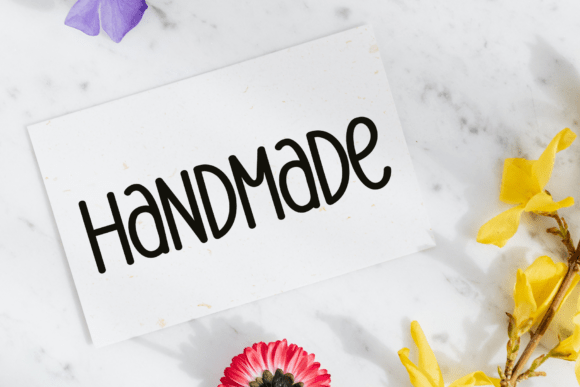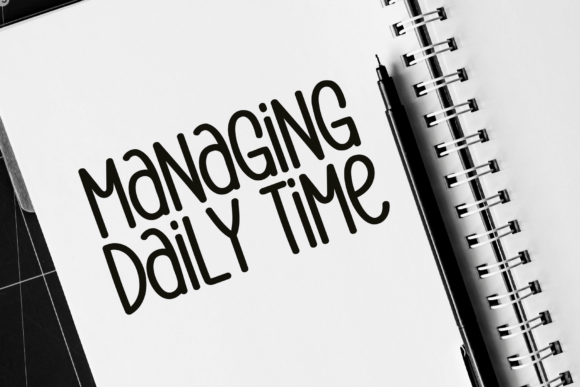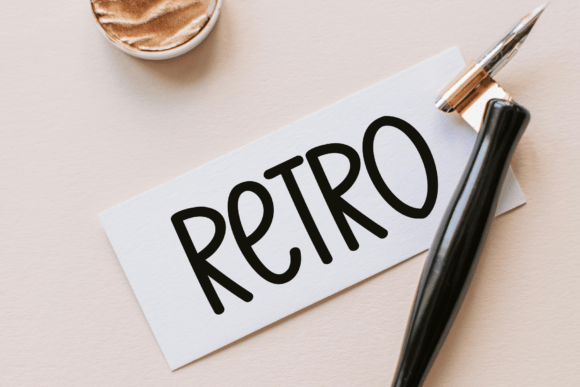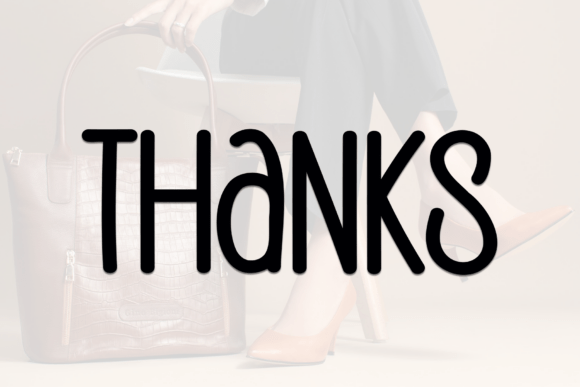
Discovering the Perfect Blend of Simplicity and Charm
| 📌 Product Name | Cultural Font |
| 👤 Author | KC Production |
Enter Cultural Font, a display font designed to bring warmth and approachability to your designs. With its clean lines, balanced letterforms, and subtle rounded edges, it’s the perfect tool for crafting a friendly and inviting aesthetic. Whether you’re working on branding, headlines, packaging, or digital content, Cultural Font is sure to deliver clarity and charm in equal measure.
Cultural Font Key Features
- Font Family: Cultural Font offers a unique blend of traditional and modern script styles, available in multiple font families.
- Customization: Offers advanced customization options, including ligature support, swash variants, and stylistic sets, to enhance typographic expression.
Cultural Font Review
Cultural Font is an intriguing font that aims to showcase the diversity of cultures around the world. Here’s my honest review.
- The font’s unique character set that represents different languages and scripts from various cultures is a great idea. It’s a nice touch that the designer has included a wide range of characters to cater to diverse users.
- The font’s bold and playful nature makes it suitable for headlines and titles. It adds a pop of personality to any design project.
- Cultural Font is also highly customizable, allowing users to adjust the font’s size, weight, and color to suit their needs.
- The font’s readability can be a concern, especially when used for large blocks of text. The characters can become crowded and difficult to decipher.
- The font’s lack of consistency in terms of character design and spacing can make it look uneven at times.
- Cultural Font may not be the best choice for projects that require a professional or formal tone, as it can come across as playful and attention-seeking.
Cultural Font is a creative and ambitious font that’s perfect for designers who want to add a touch of cultural flair to their projects. While it has its limitations, it’s a great choice for headlines, titles, and other design elements where you want to make a statement. However, for large blocks of text or formal projects, you may want to consider a more traditional font.
Tips for Getting the Most Out of Cultural Font
To get the most out of Cultural Font, consider the following tips:
- Use Cultural Font in designs that require a cultural or traditional feel.
- Experiment with different font sizes and styles to achieve the desired effect.
- Combine Cultural Font with other fonts to create a unique and interesting design.
Cultural Font is commonly used in:
- Cultural events and festivals.
- Traditional and historical designs.
- International and multicultural designs.